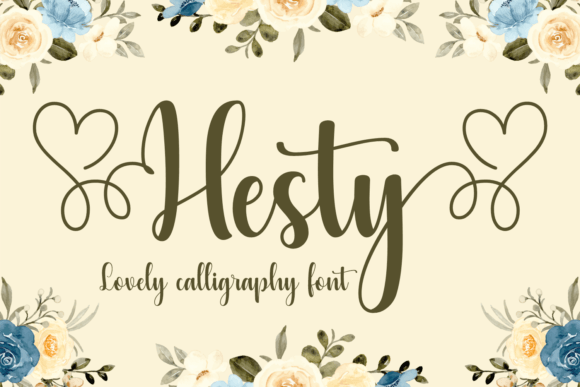
Dive into the realm of typography and unveil the captivating aura of Hesty Font, a script font family that embodies elegance and sophistication. Designed by the creative minds at Jasa (7NTypes), Hesty stands as a testament to the power of balanced aesthetics, exuding a glamorous charm that elevates any design it adorns.
With Hesty by your side, unleash your creativity and embark on a typographic journey like no other. Experience the allure of perfectly crafted curves, the graceful flow of each letterform, and the harmonious interplay of thick and thin strokes. Whether you're crafting stunning posters, captivating logos, or eye-catching social media graphics, Hesty will leave an unforgettable impression, adding a touch of luxury and finesse to your creations.
As you delve deeper into the world of Hesty, discover the versatility that makes it a font of endless possibilities. Its PUA encoding grants you effortless access to a treasure trove of delightful glyphs and swashes, empowering you to unleash your imagination and add intricate details that bring your designs to life.
Hesty's versatility extends far beyond its aesthetic appeal. Its adaptability shines in a myriad of design scenarios, effortlessly complementing everything from branding projects and wedding invitations to magazine layouts and social media posts. Whether you're a seasoned designer or just starting your creative journey, Hesty will become your trusted companion, guiding you towards typographic excellence.